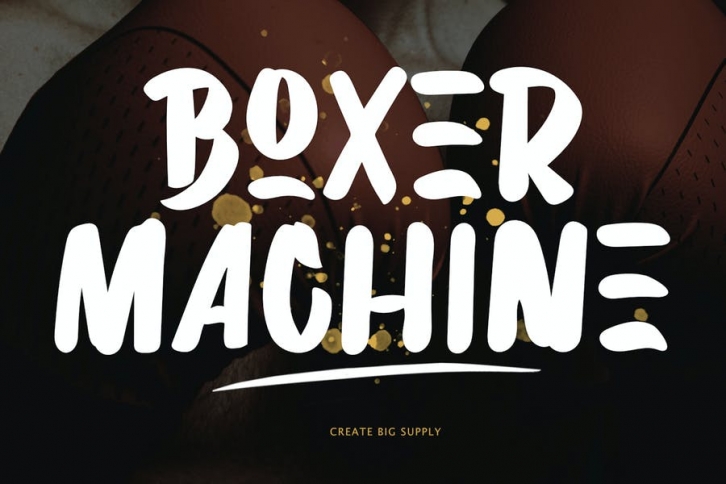
Introducing, Boxer Machine Brush Font. It has a strong and natural stroke style from the original brush. This type of font is very suitable to be applied especially to logos, and various other formal forms such as labels, logos, magazines, books, greeting cards, packaging, novels, labels or anything. type of advertising objective.